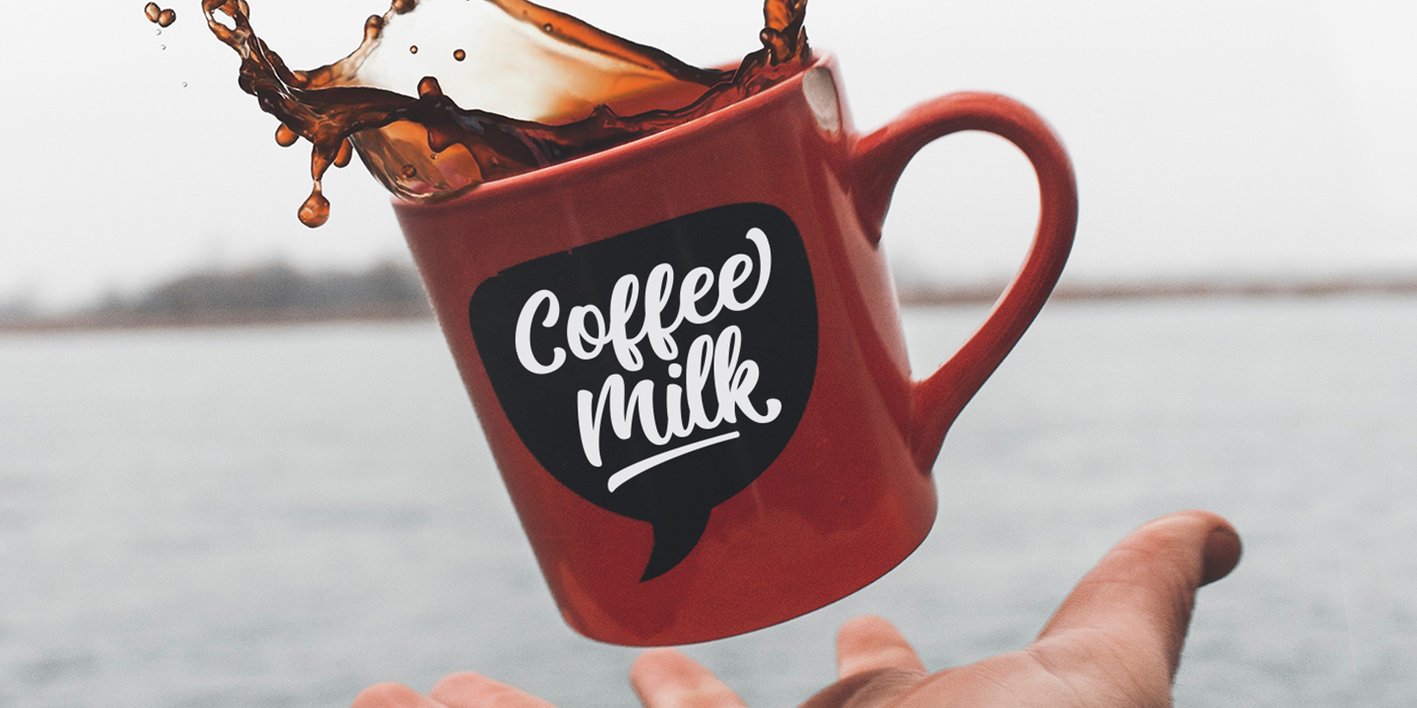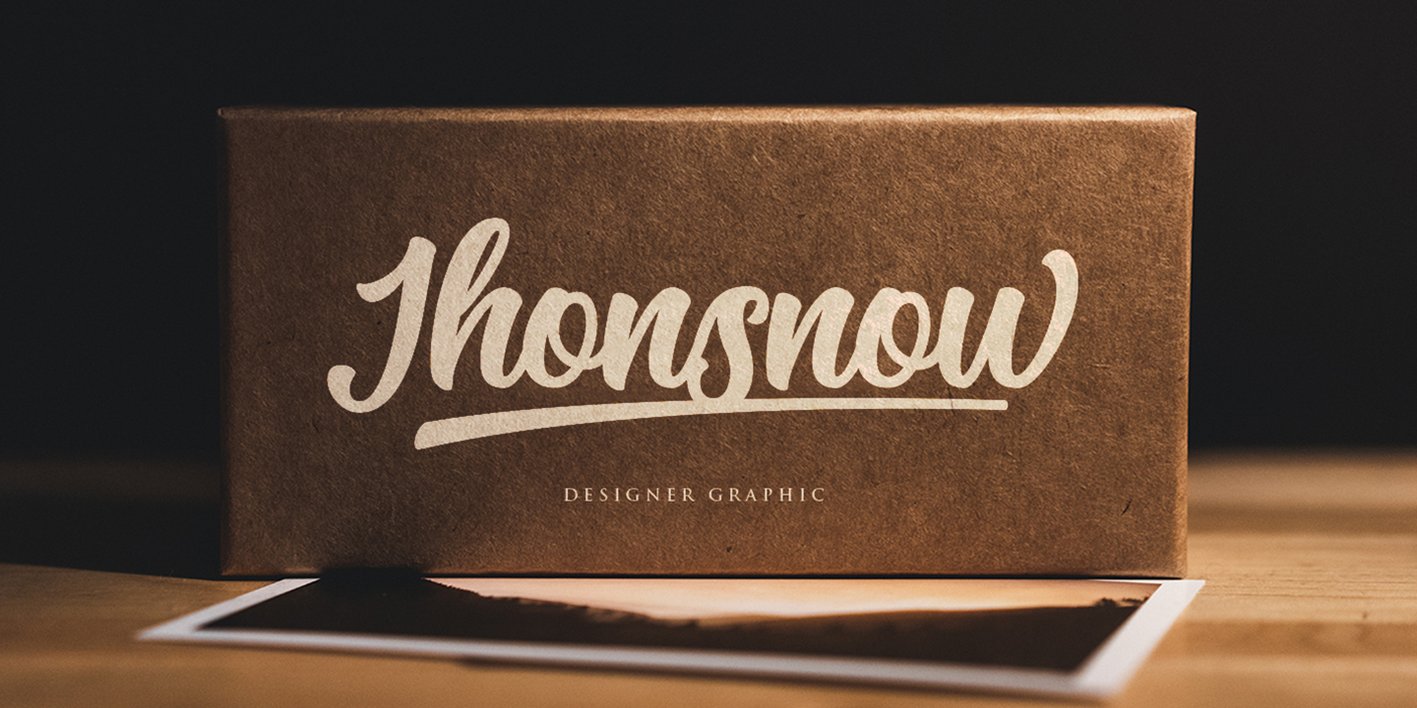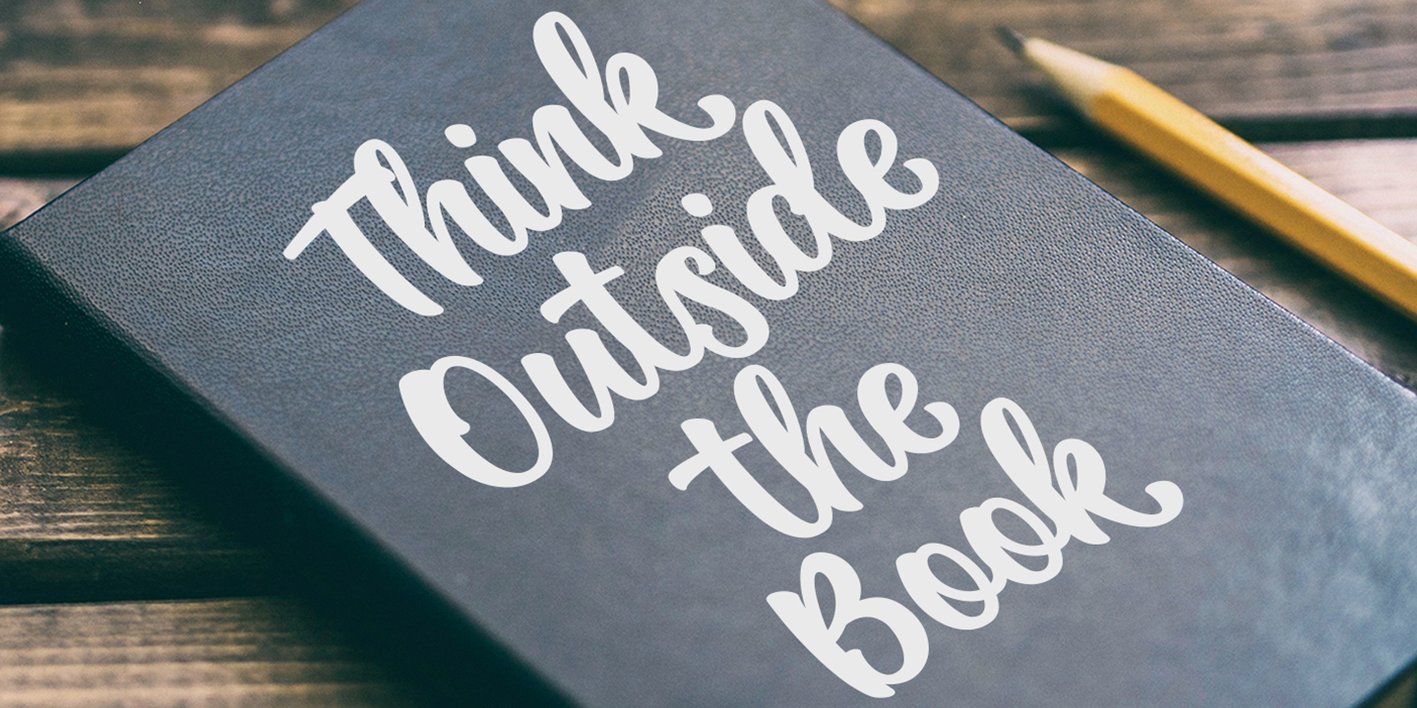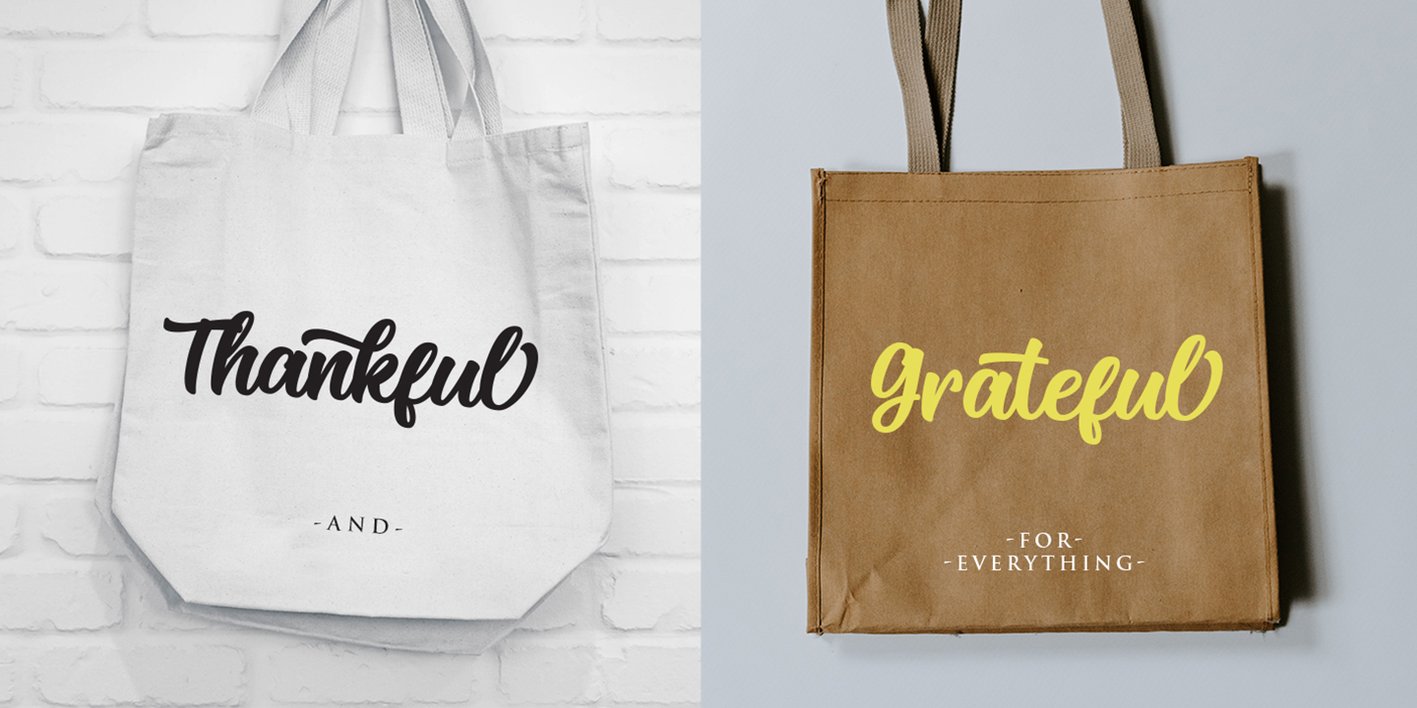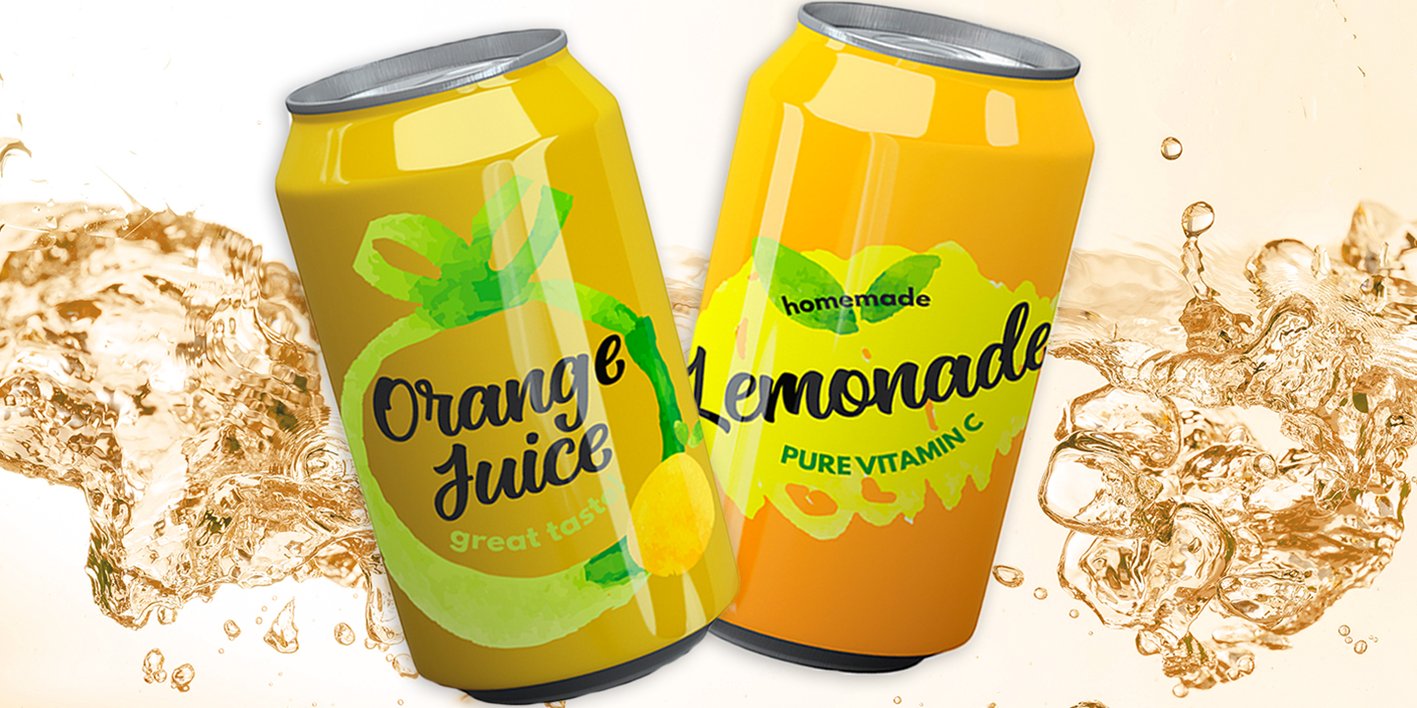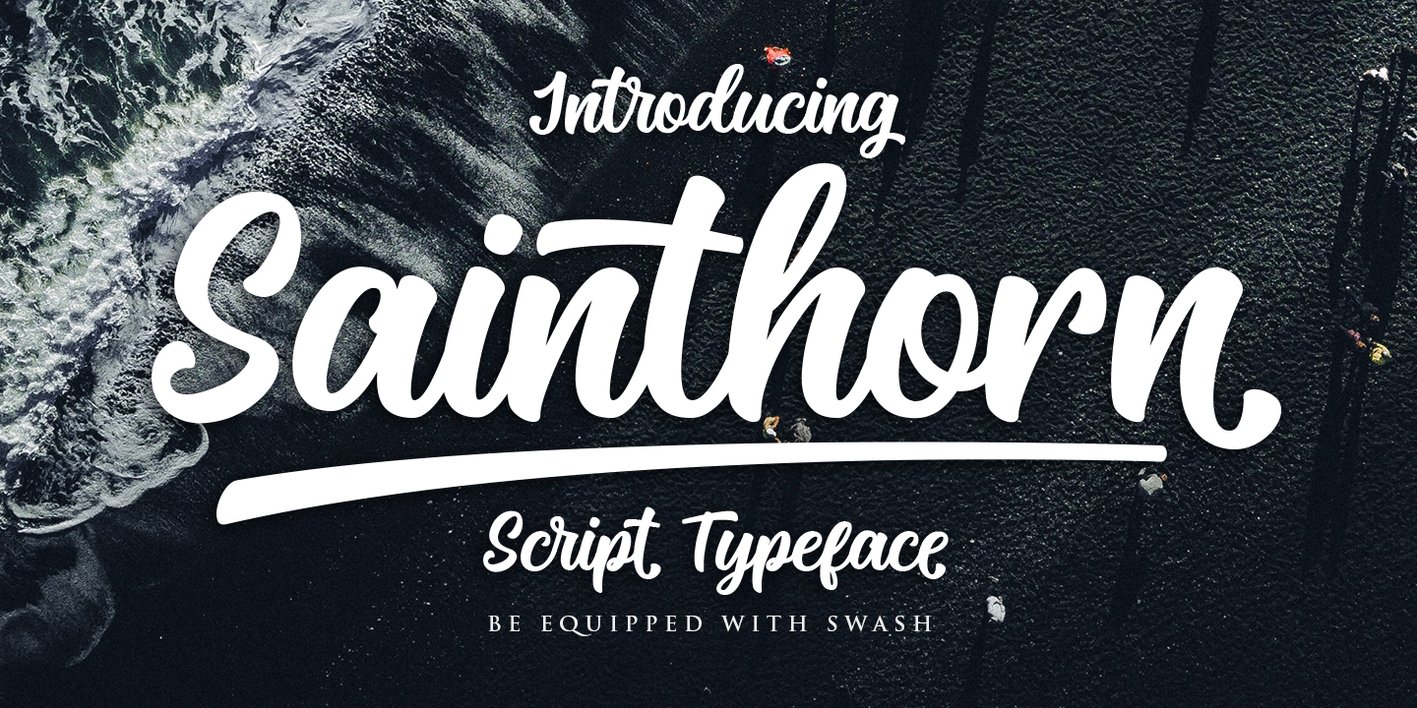
Sainthorn Font
Sainthorn Font is perfect for religious publications, church signage, spiritual retreat materials, sacred music album covers, monastery branding, religious ceremony invitations, biblical study guides, cathedral restoration projects, pilgrimage route maps, religious art exhibitions, theological seminary materials, and divine projects that require sacred, ecclesiastical typography with spiritual gravitas and holy sophistication.
What makes Sainthorn Font so exciting is its sacred elegance and spiritual authority that embodies the divine beauty and reverent tradition of ecclesiastical design and religious typography. This typeface features dignified letterforms with graceful curves and sacred characteristics that evoke the timeless sanctity of ancient scriptures, illuminated manuscripts, and cathedral architecture. The font's holy character and spiritual appeal make it perfect for religious organizations and faith-based projects that want to communicate divine reverence, sacred tradition, and the kind of spiritual depth that connects believers to their faith and sacred heritage.
Sainthorn Font typically comes in multiple weights and styles including Light, Regular, Medium, and Bold variations. Many versions also include religious symbols, sacred ornaments, and ecclesiastical decorative elements that enhance the font's spiritual functionality and provide designers with comprehensive tools for creating reverent, faith-inspired typography compositions that honor religious traditions and sacred aesthetics.
Inspire faith with the sacred beauty of Sainthorn Font Free Download. This reverent typeface brings together spiritual tradition with contemporary design functionality, making it an essential tool for religious organizations and faith-based communities that need to create memorable, spiritually meaningful communications that resonate with believers seeking divine connection and sacred inspiration. The font's holy character ensures your religious communications will convey spiritual authority and sacred reverence.
Whether you're designing church materials, religious publications, or spiritual event communications, Sainthorn Font delivers exceptional sacred authenticity and divine elegance that connects with faithful audiences who appreciate religious tradition and spiritual beauty. Its reverent, dignified appearance works beautifully with sacred imagery and traditional religious color schemes, creating designs that feel both spiritually meaningful and professionally crafted.
The reverently crafted letterforms of Sainthorn Font demonstrate deep respect for religious typography traditions and sacred design principles. Each character has been designed to honor the sanctity of religious communication while maintaining excellent readability for contemporary worship and educational applications, making it particularly valuable for faith communities where typography must convey both spiritual reverence and accessible divine wisdom.